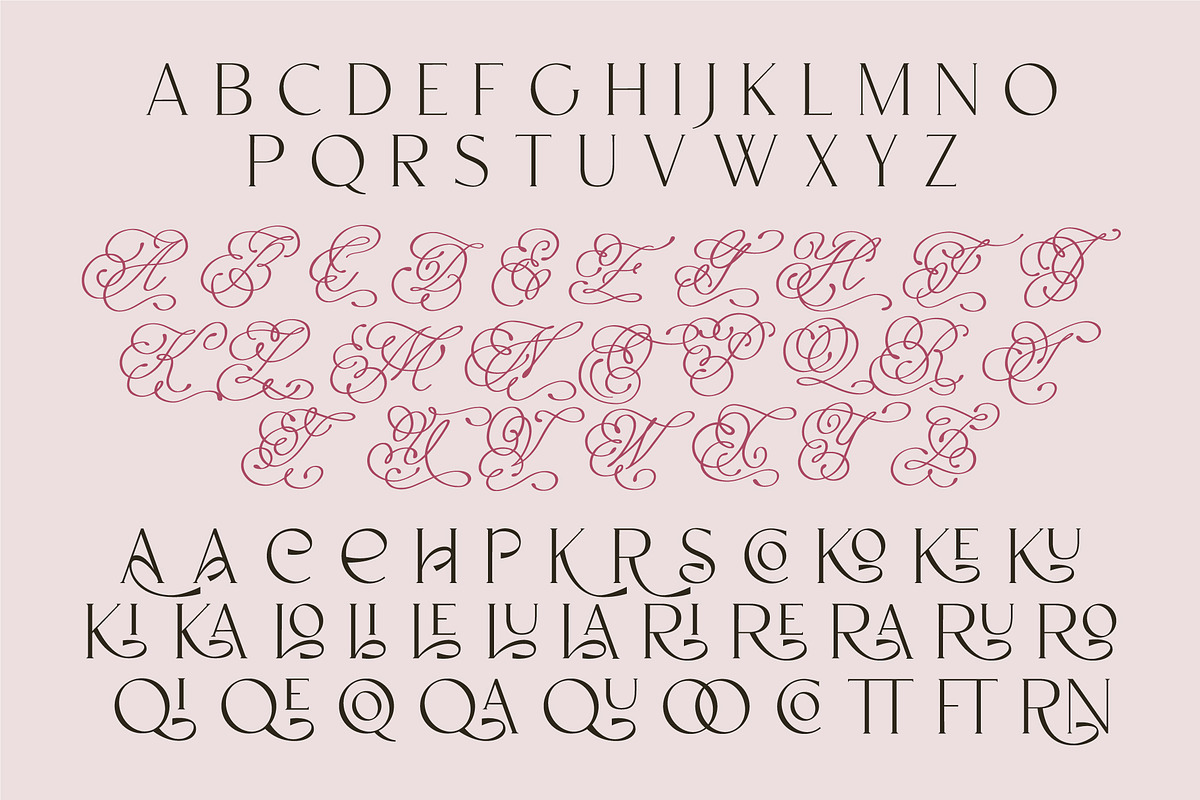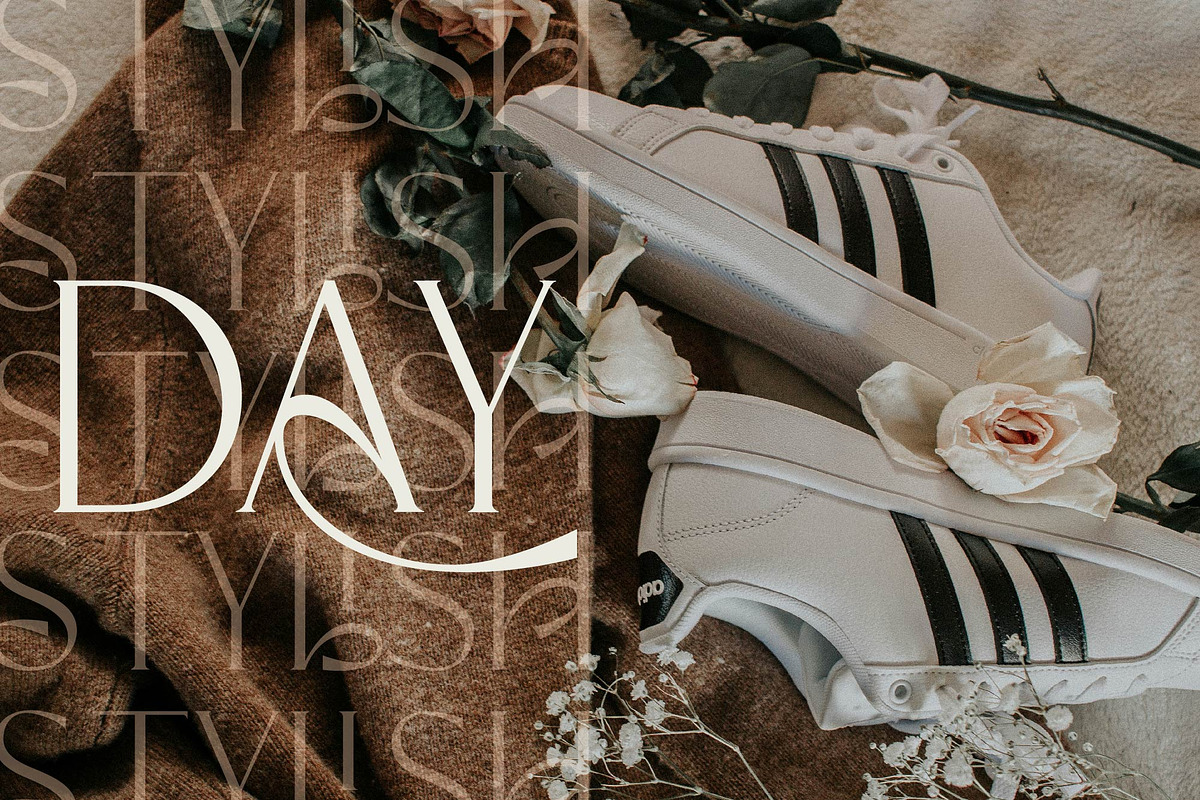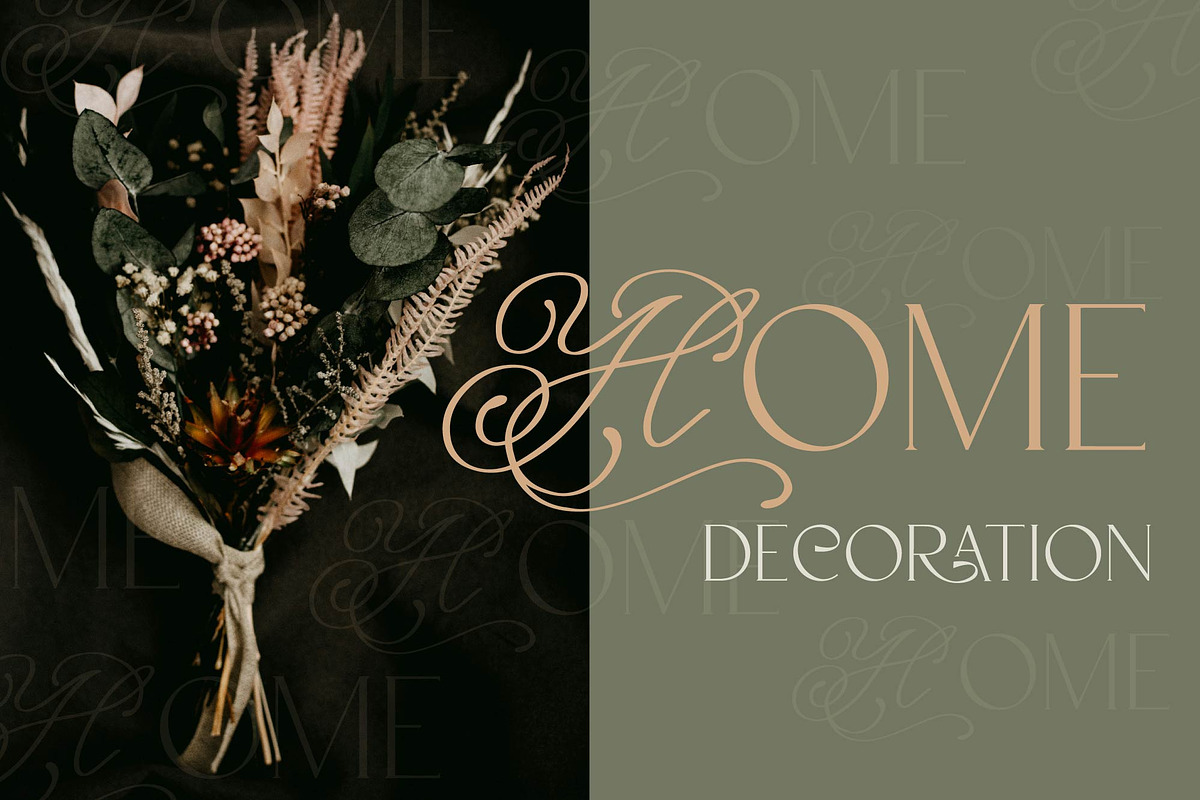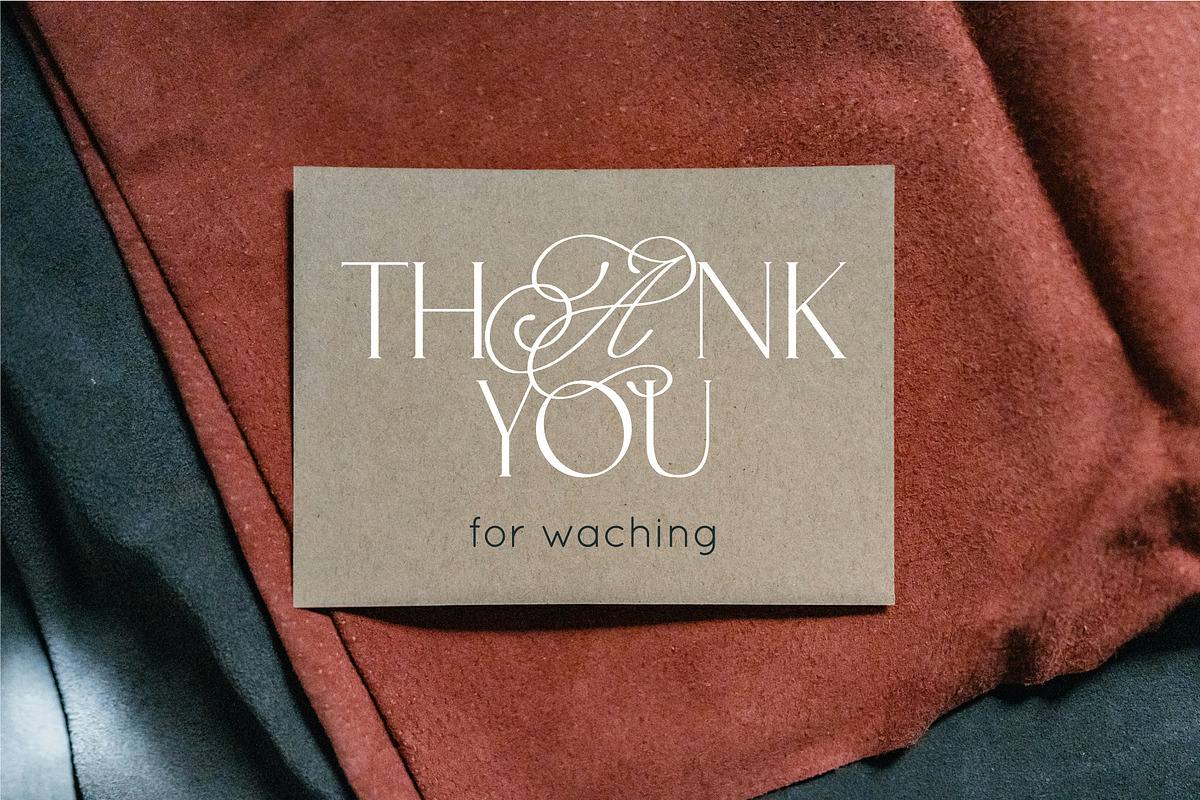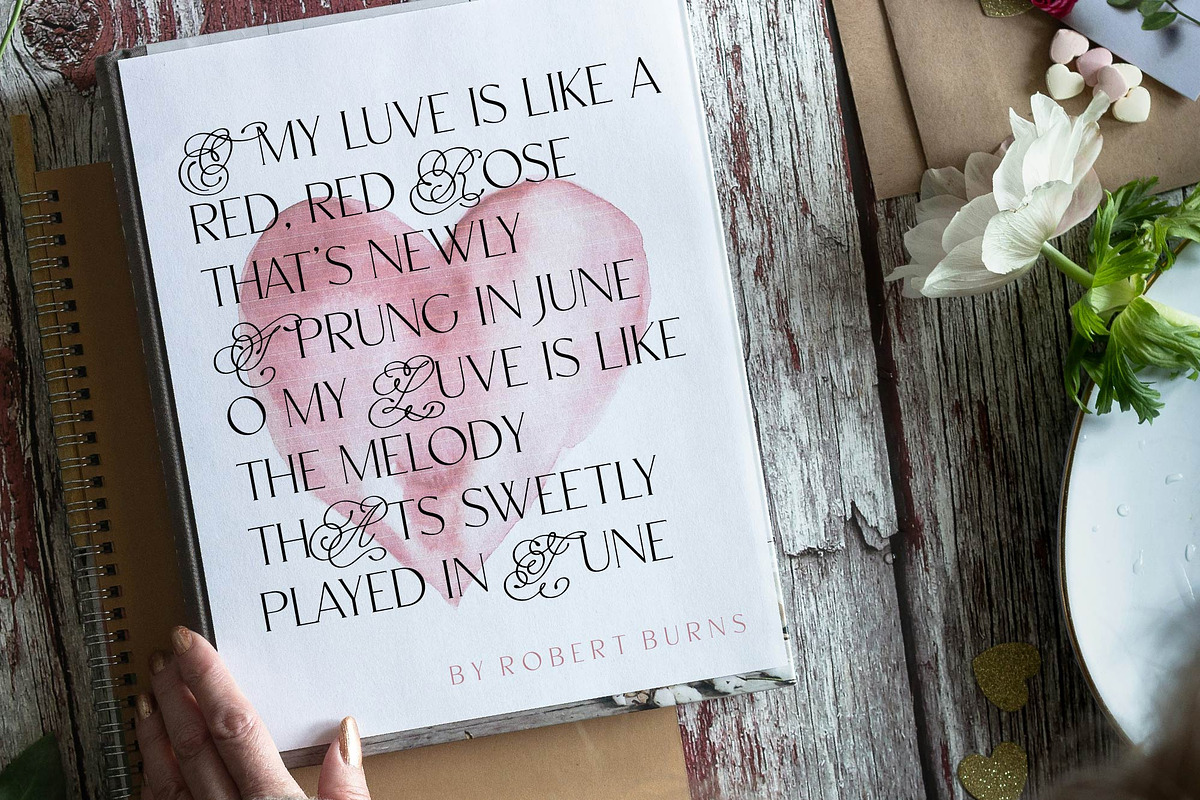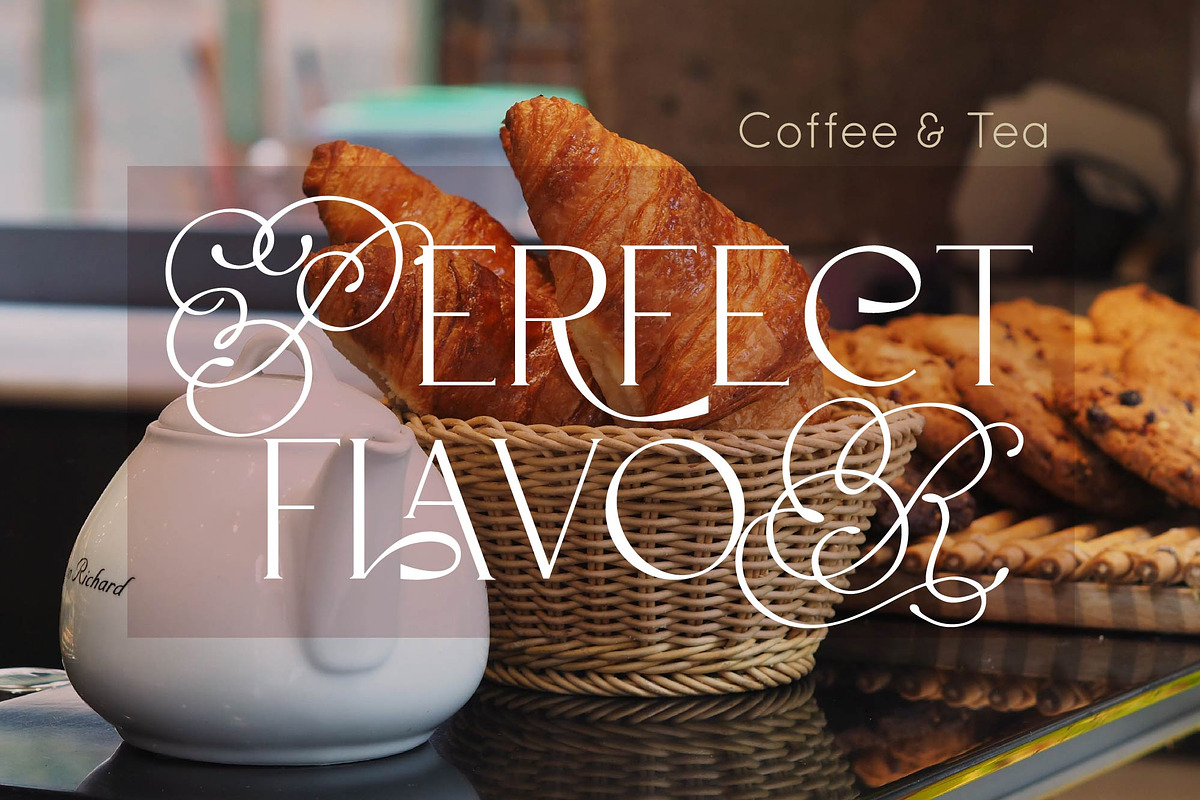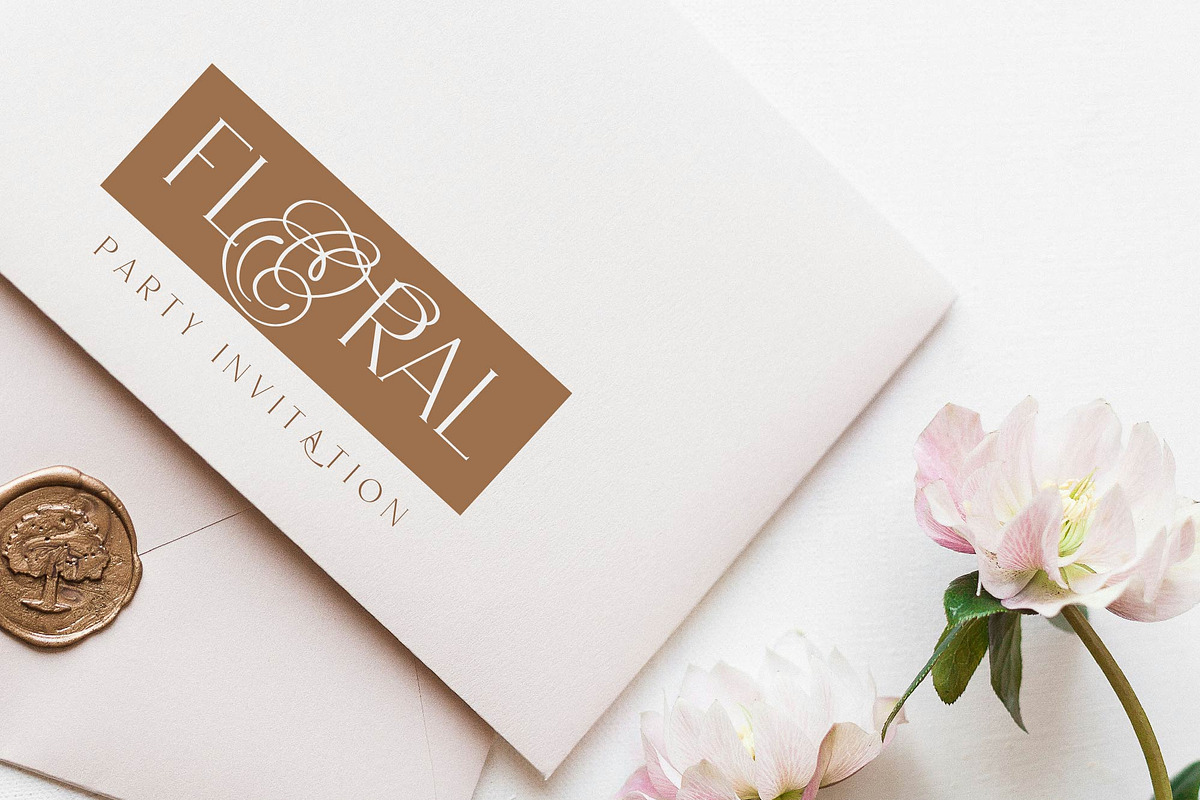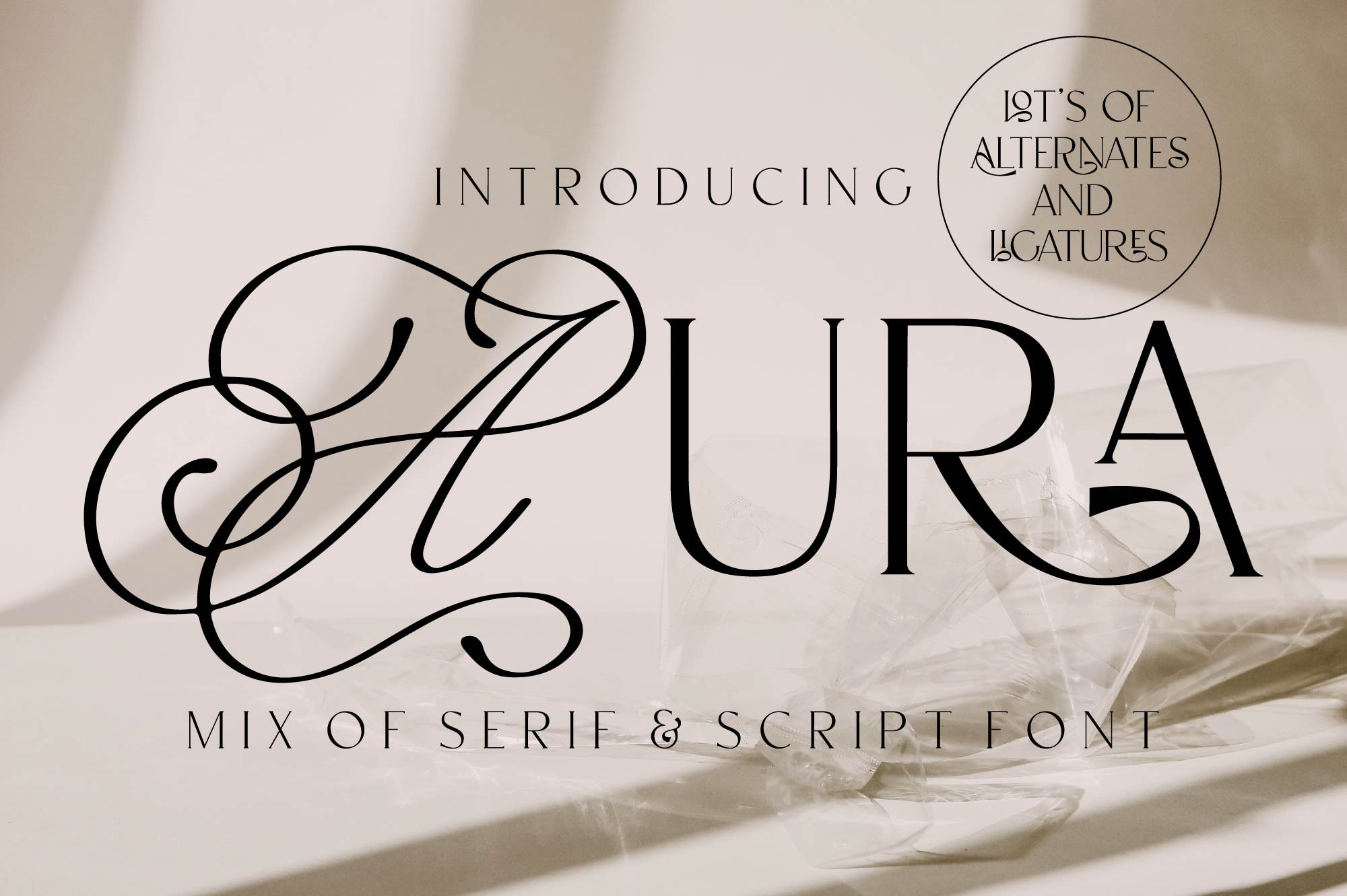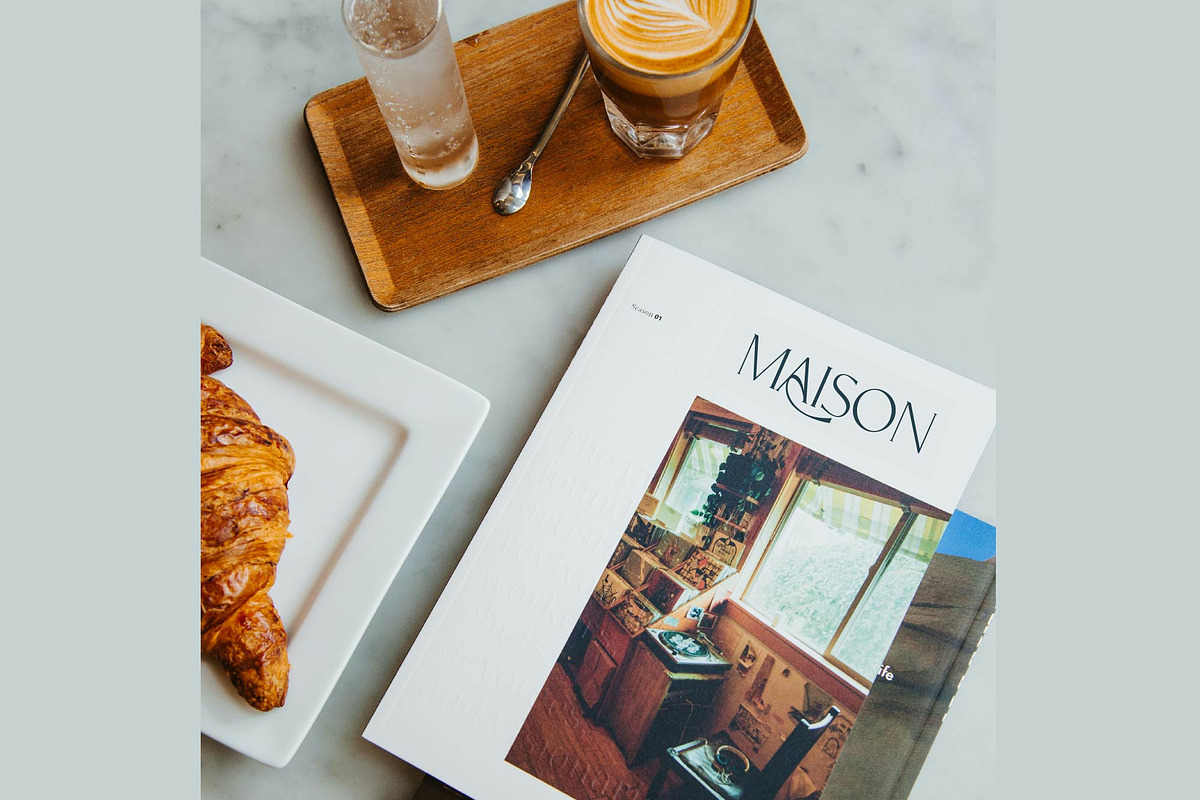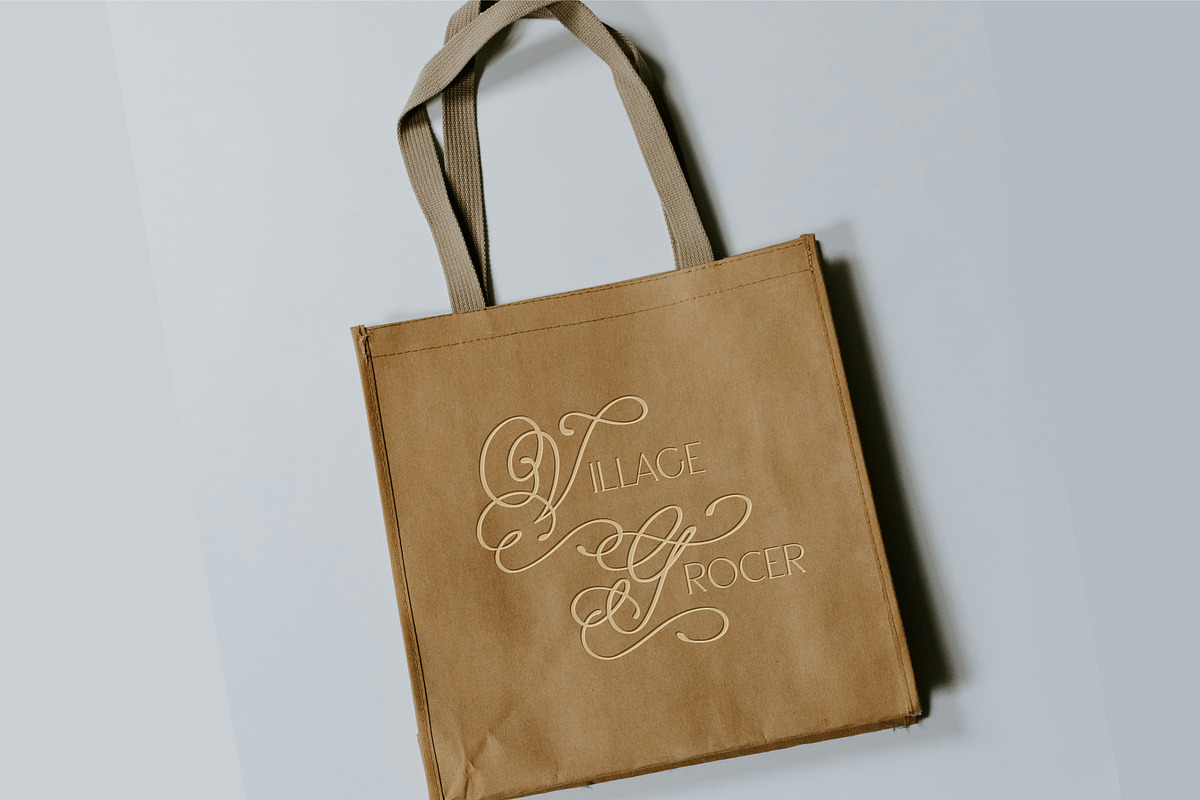
AURA Serif Typeface
"AURA font" is a beautiful combination of calligraphy and serif typeface. It includes 2 fonts that have a very different style and appearance, but make this font look unique.
This "font" has a "vintage charm" and "nostalgic feel" that makes it perfect for a wide array of design applications. This font is perfect for your design needs such as poster design, logo design, branding, social media design, book, magazine, etc.
AURA "serif typeface" ang calligraphy contains uppercase-only characters, punctuation & numerals, multilingual support (French, German, Italian, Norwegian, Portuguese, Spanish, Swedish, Swiss German).
AURA serif typeface includes a number of 'Standard Ligatures' (unique double-letter pairings) and 'Stylistic Alternates' (alternative letter designs) to provide you with more customisation options. Make sure these functions are switched on in your software in order to access these characters. All ligatures and alternates can also be accessed via a Glyphs panel.